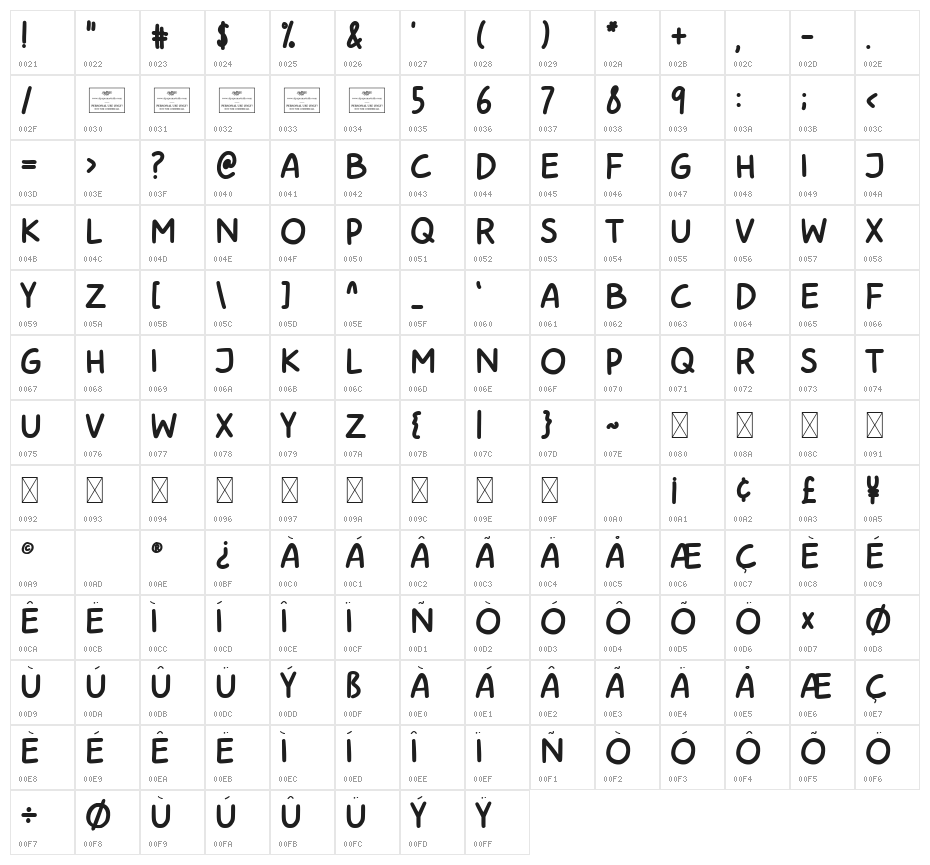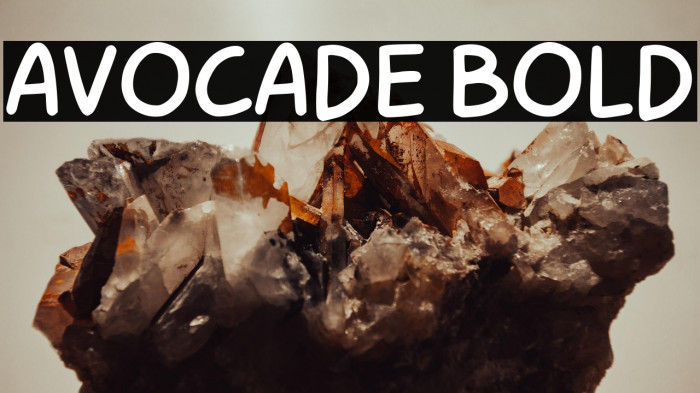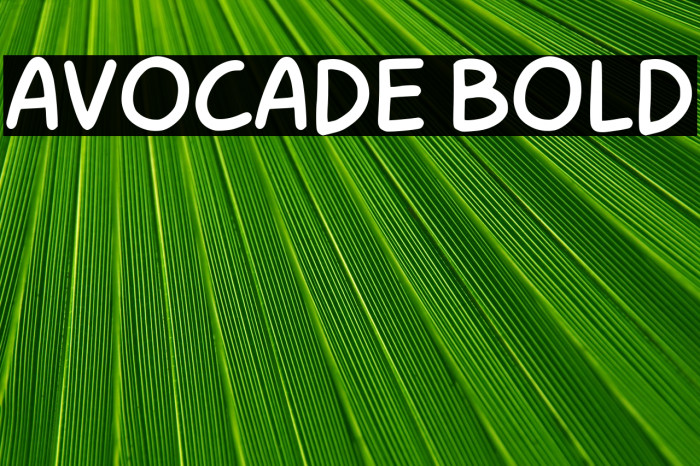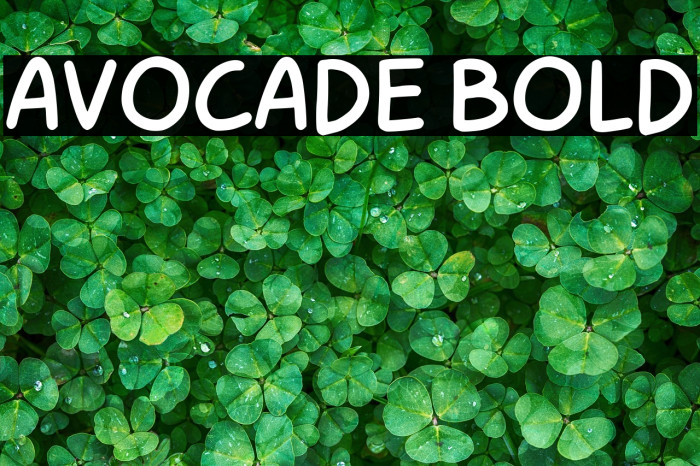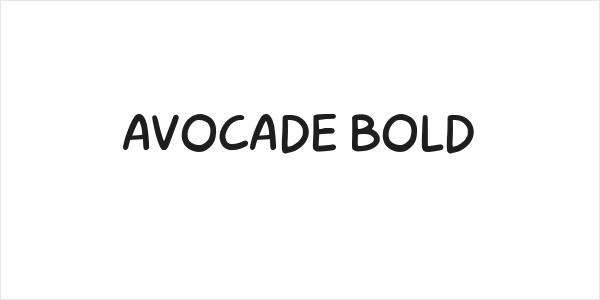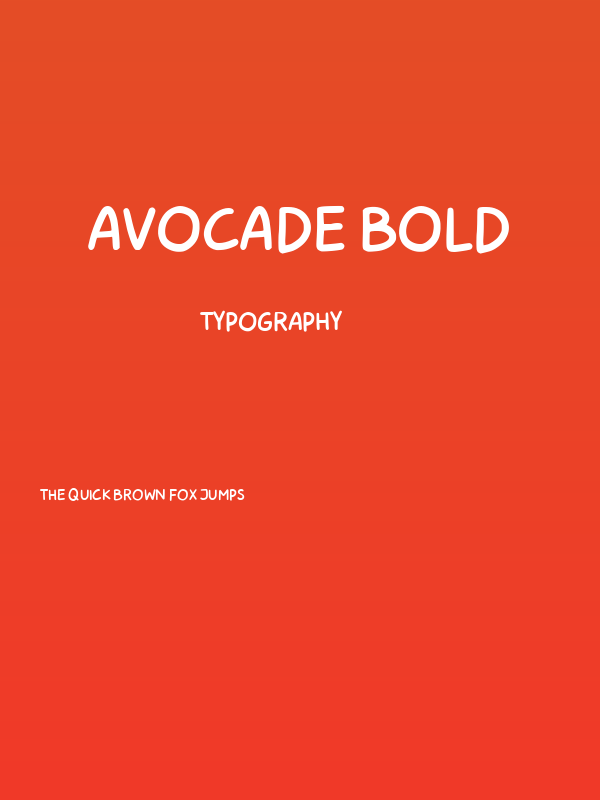
Avocade Bold Font
Avocade Bold Description
This font features a playful and rounded style, characterized by its bold and smooth curves. The letters are evenly spaced, providing a clean and approachable appearance. The uppercase and lowercase letters maintain a consistent width, contributing to a harmonious and balanced look. The numbers and special characters are designed to match the overall style, ensuring uniformity across all elements. This font's boldness and rounded edges make it suitable for projects that require a friendly and inviting tone.
| Proposed Projects | Ideal for children's books, playful branding, casual invitations, and friendly social media graphics. |